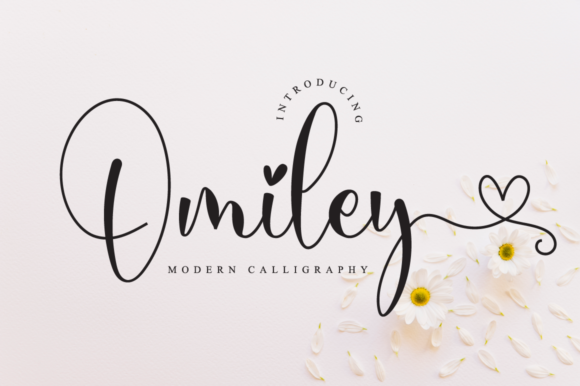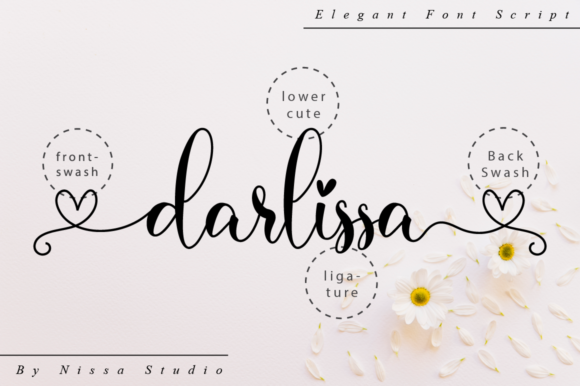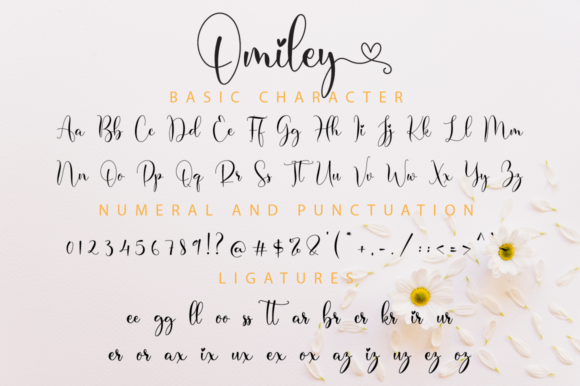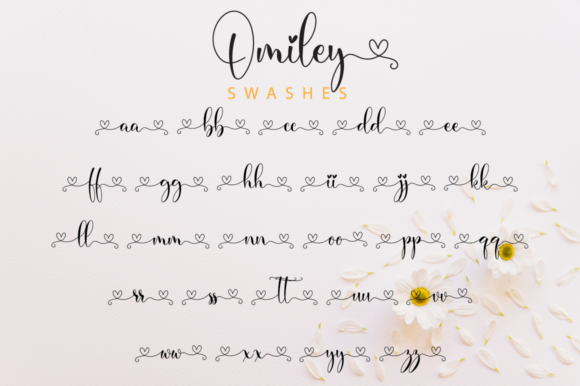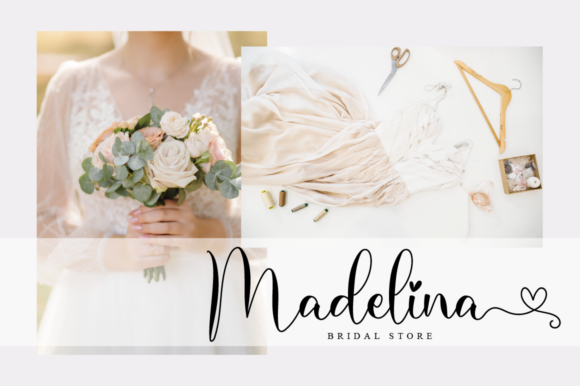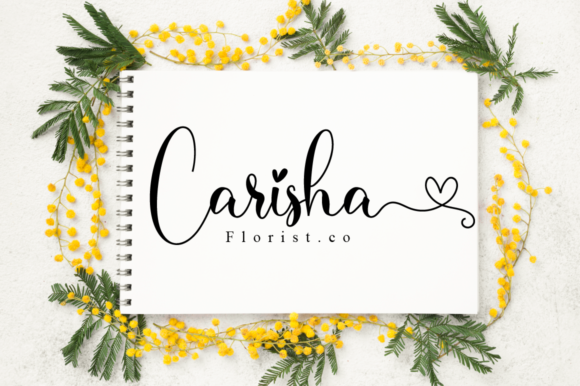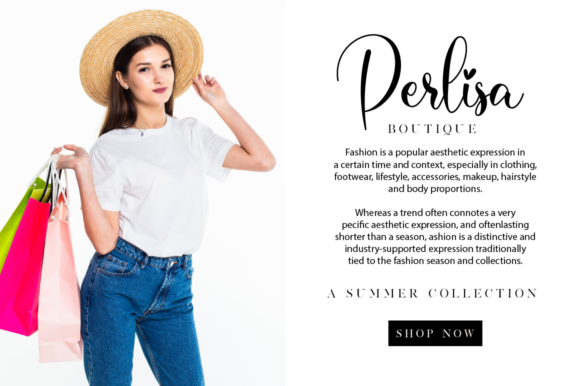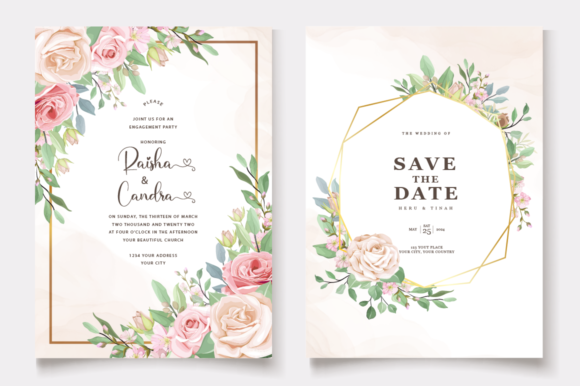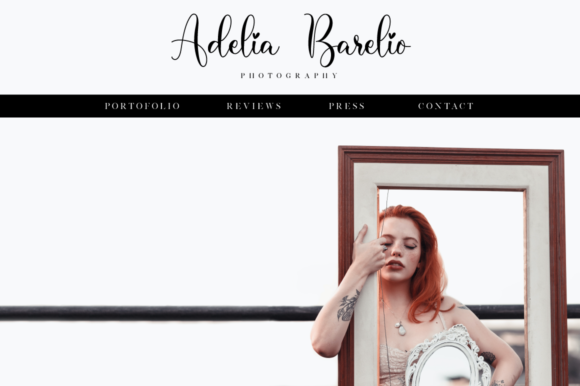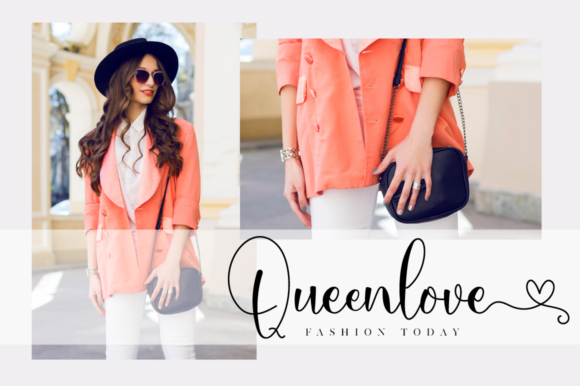
Omiley Font
About Omiley Font
Introducing Omiley, an elegant and flowing handwritten font that exudes timeless beauty and sophistication. This font is a true masterpiece, artfully crafted to maintain its classy calligraphic influences while embracing a contemporary and fresh feel. With Omiley, you have the power to unlock a world of creative possibilities. Its PUA encoding grants you easy access to a wealth of glyphs and swashes, while its varying baseline, smooth lines, gorgeous glyphs, and stunning alternates are ready to elevate your projects to the highest levels of excellence and allure.
Omiley’s elegance and flow lend an air of grace and refinement to your text. Each letter dances gracefully, as if written with an expert calligrapher’s hand. Whether you’re designing wedding invitations, love letters, or inspiring quotes, Omiley adds a touch of sophistication that leaves a lasting impression.
The versatility of Omiley knows no bounds. As you fall in love with this font, you’ll discover how it effortlessly complements a wide range of design projects. From branding and logo design to social media graphics, blog headers, and digital artwork, Omiley seamlessly adapts to any style, enriching your creations with its exquisite allure.
With its PUA encoding, Omiley offers you a treasure trove of glyphs and swashes, allowing you to add personalized embellishments and decorative elements with ease, making each project uniquely yours and a true work of art.
For special occasions and significant events, Omiley is an enchanting choice. Imagine using it for wedding stationery, where the font’s elegance and flowing lines set the perfect tone for a day filled with love and celebration.
Moreover, in branding and logo design, Omiley shines brightly. Its calligraphic influences create a logo that exudes sophistication and refinement, reflecting your business’s identity with utmost grace.
In the digital realm, Omiley adds a touch of elegance to social media graphics and blog headers, drawing in viewers and leaving a lasting impression. Its smooth lines and stunning alternates make your online presence stand out with a contemporary and fresh appeal.
In longer passages, Omiley maintains its legibility, making it a valuable asset for editorial designs like books, magazines, and brochures. Its flowing grace ensures that your readers can immerse themselves in the written words, enjoying every nuance and detail.
In conclusion, Omiley is more than just a font; it’s an exquisite work of art that combines elegance and contemporary charm. With its PUA encoding, flowing handwritten style, and timeless allure, Omiley becomes an indispensable tool for all your design projects. From wedding invitations to branding, social media graphics, and editorial designs, Omiley elevates your creations to the highest levels of beauty and creativity. Embrace the enchantment of Omiley and watch as your projects flourish with its captivating allure. Let your creativity soar in the elegant embrace of Omiley, the flowing handwritten font that defines sophistication.